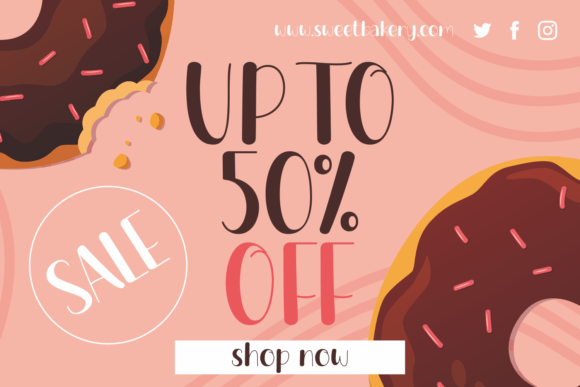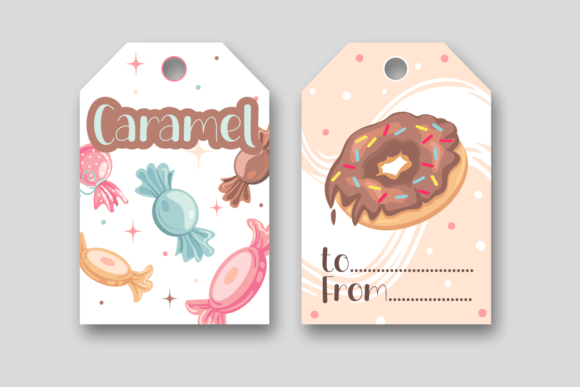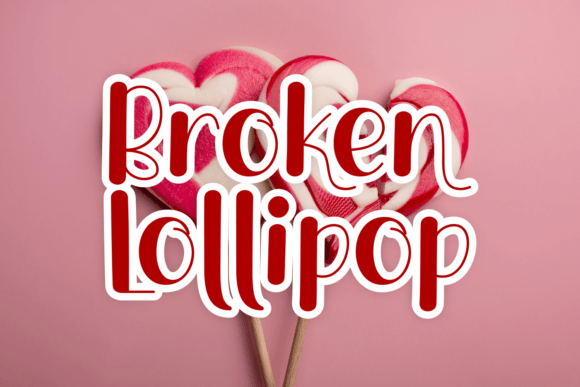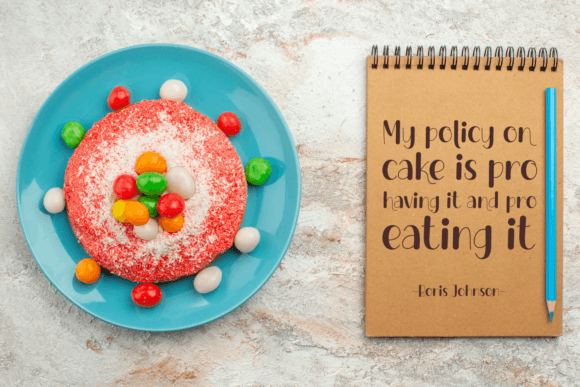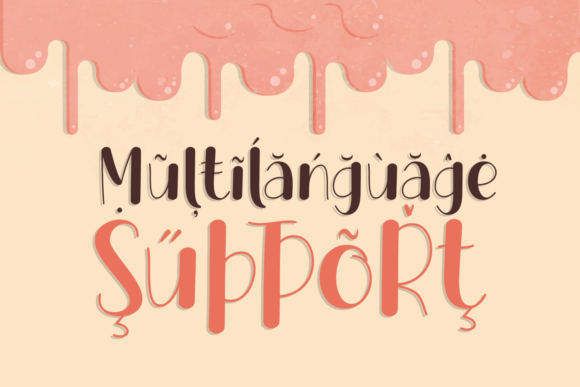
Introduction to Melty Candy Font
Melty Candy is a happy handwritten font that will bring your design into a happy and fun mood.
This font is perfect for branding, packaging, logotype, headline, wedding invitation, etc This font is PUA encoded which means you can access all of the amazing glyphs and ligatures with ease.